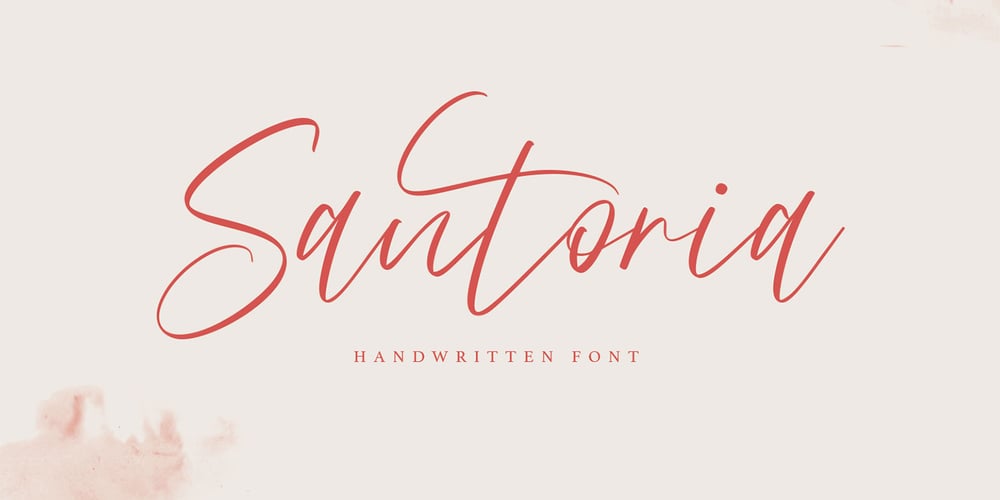
Santoria
Santoria font
Santoria Font Family was designed by Gilang Maulana and published by Maulana Creative. Santoria contains 1 styles and family package options. Give your designs an authentic handcrafted feel. “Santoria Font” is perfectly suited to signature, stationery, logo, typography quotes, magazine or book cover, website header, clothing, branding, packaging design and more.